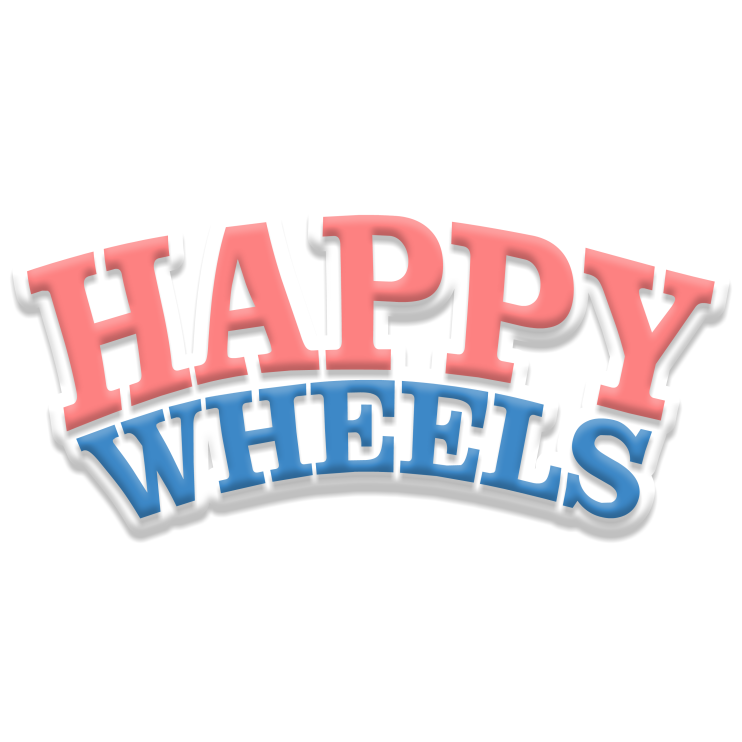
Happy Wheels Font
ActionHappy Wheels is a physics-based side-scrolling action game developed by Fancy Force and designed by Jim Bonacci in 2010. The game features various characters riding on various vehicles and attempting to navigate through challenging levels filled with obstacles, such as spikes, saw blades, and bottomless pits.
Happy Wheels logo font on the box art is probably Clarendon, a slab serif created by Robert Besley for Fann Street Foundry.